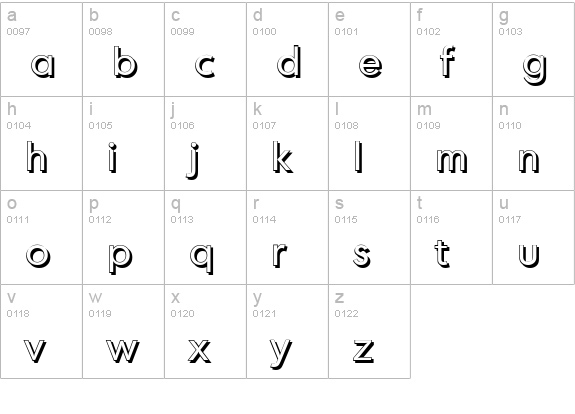
MontrealShadow-Regular is the standard, neutral variant in the MontrealShadow typeface family \xE2\x80\x94 well suited to general body text, paragraphs, and standard typographic work.
MontrealShadow-Regular is a stunning and versatile font that combines elegance with a touch of modernity. Its sleek and sophisticated design makes it perfect for a wide range of projects, from branding to print materials. The sharp edges and subtle shadows of this font add a dynamic and professional look to any text. Best of all, MontrealShadow-Regular is available for free download at FontsMarket.com. This means you can easily access this high-quality font and enhance your design projects without any additional cost. Don't miss out on the opportunity to add MontrealShadow-Regular to your font collection and elevate your creative work to the next level.